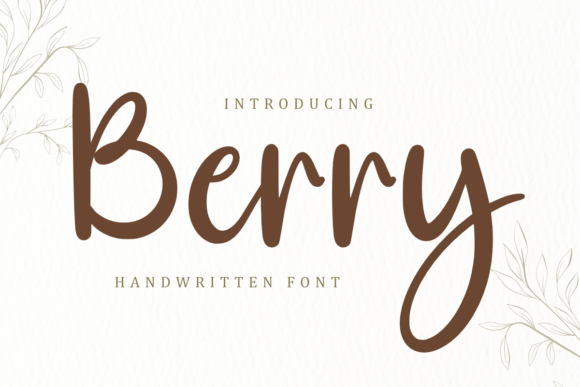
A Touch of Warmth with Berry Font
As designers, we’ve all been there – staring at a blank page, trying to capture the essence of a brand or idea. It’s those moments when the perfect font can make all the difference. Imagine you’re designing a packaging label for a small-batch jam company, and you want to convey the love and care that goes into every jar. That’s where Berry Font comes in – a playful and cozy handwritten font that brings a friendly, down-to-earth feel to any design.
Berry Font is more than just a font – it’s a way to add warmth and approachability to your designs. With its bold strokes and natural flow, it’s perfect for lifestyle branding, packaging, social media posts, and heartfelt quotes. Whether you’re designing for a small business or crafting DIY-style projects, Berry Font adds a touch of charm that’s hard to resist.
- Unique Characteristics: Berry Font features a unique blend of modern and vintage elements, with a distinctive rounded shape and subtle texture that gives it a warm and inviting feel.
Berry Font Review
I’ve had the chance to work with the Berry Font, and overall, I think it’s a great addition to any design project. ✨ One of the things I love about this font is its playful and youthful vibe, making it perfect for creative and modern designs. It’s also highly legible, even at smaller font sizes, which is a major plus.
Another aspect that I appreciate about Berry Font is its versatility. It comes in a range of weights and styles, allowing you to customize it to fit your design needs. Whether you’re creating a bold and eye-catching title or a subtle and understated body text, Berry Font has got you covered. ✨
While Berry Font is a great choice for many design projects, there are a few limitations to consider:
- ⚠️ The font may not be suitable for formal or professional designs, as it has a somewhat casual and playful feel.
- ⚠️ Berry Font may not be as effective in large block of text, as it can start to feel overwhelming.
Overall, I think Berry Font is a fantastic choice for designers who want to add a touch of whimsy and fun to their projects. While it may have some limitations, I think its unique personality and versatility make it a great addition to any design toolkit.
Getting the Most Out of Berry Font
To get the most out of the Berry font, try the following tips:
- Use it for whimsical and playful designs.
- Pair it with bold and bright colors.
- Experiment with different font sizes and styles.
The Berry font is commonly used for:
- Children’s book illustrations.
- Wedding and party invitations.
Alternatives to Berry Font
Courier New
Courier New is a monospaced font designed for readability in low-resolution displays. It is a good choice for designers who want a clean and simple font for body text or coding.
Comparison to Berry Font: While Courier New is more monospaced and sans-serif, Berry Font has a more rounded and condensed feel. Use Courier New for projects that require a simple, readable font.
Rockwell is a serif font with a strong, classic feel. It is a good choice for designers who want to add a touch of elegance to their designs.
Comparison to Berry Font: While Rockwell is a serif font with a more formal feel, Berry Font is a sans-serif font with a more playful feel. Use Rockwell for projects that require a sophisticated, classic look.